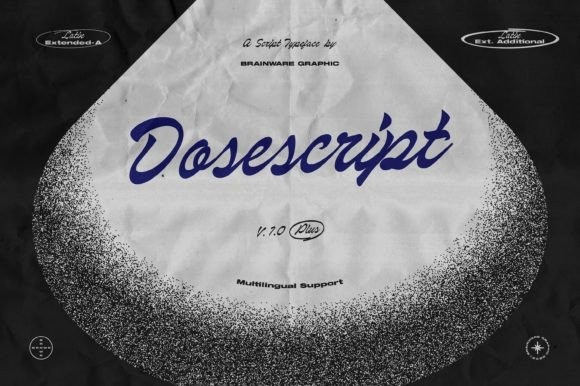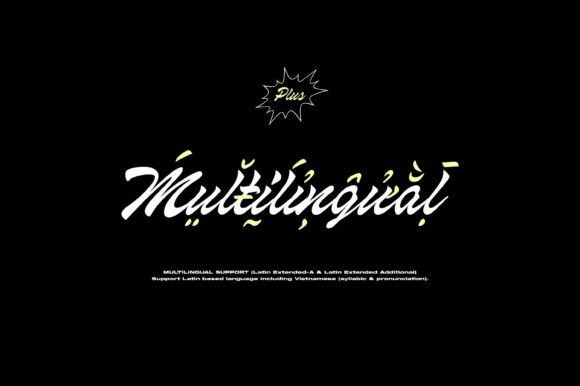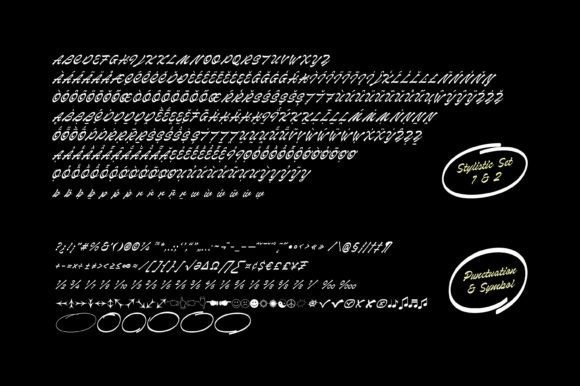
Dosescript Font
Dosescript is a classic casual script typeface inspired by legendary script from 40’s, developed with sharpenning and a little bit contrast.
Comes with a lot of opentype features, Dosescript also supports multilingual covering Latin based language (Latin Extended-A & Latin Extended Additional), including Celtic, Sami, Maltese, Turkish, England, USA, Germany, France, Italy, Poland, and Vietnamese (syllabic & pronunciation).